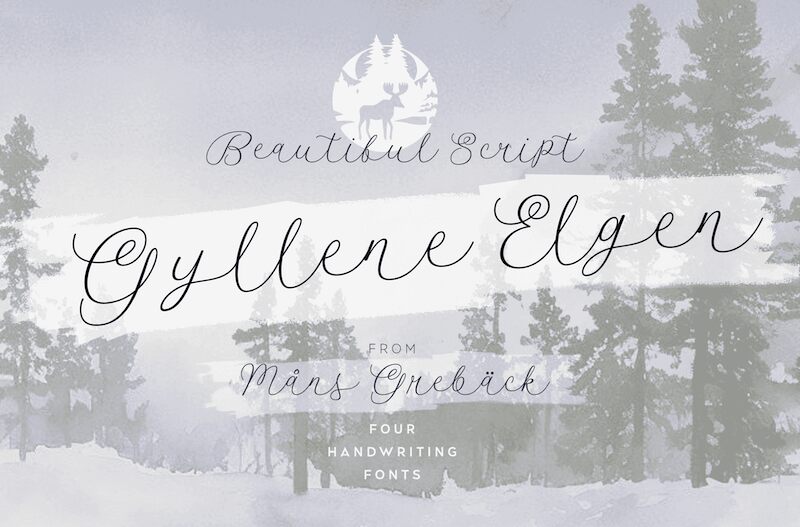
Gyllene Elgen, designed by the talented Mans Greback, is a captivating calligraphy font that exudes elegance and sophistication. With its delicate strokes and graceful curves, this light-weight font adds a touch of refinement to any project. Perfect for wedding invitations, luxury branding, or fashion editorials, Gyllene Elgen evokes a sense of timeless beauty. Its flowing script creates an enchanting atmosphere, making it ideal for romantic novels or poetic quotes. This font will enhance your website's visual appeal while ensuring optimal readability across all devices. Elevate your designs with Gyllene Elgen's exquisite calligraphic style and make a lasting impression.
Gyllene Elgen, created by Mans Greback, is a delicate and captivating handwriting font that exudes romance and charm. With its thin, beautiful lines, and loopy, decorative swirls, this typeface brings a touch of elegance and sophistication to your design projects.